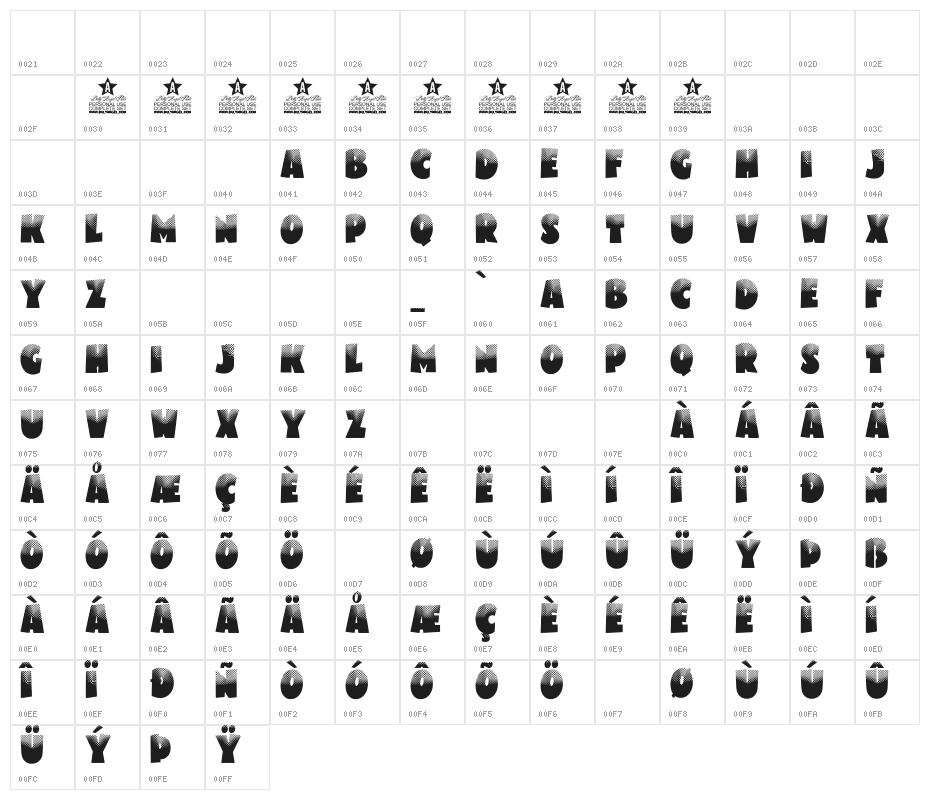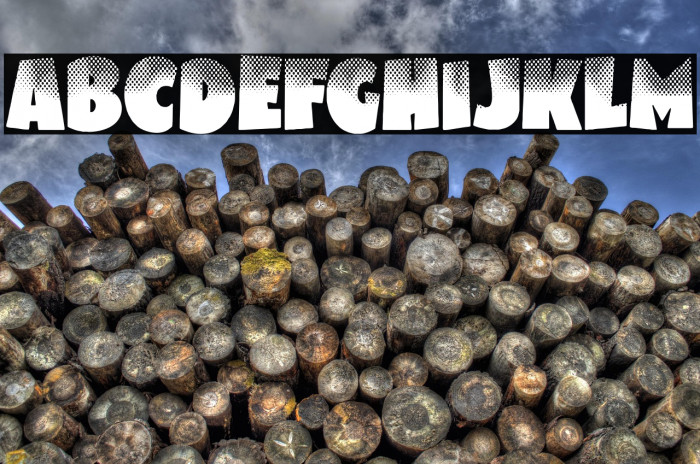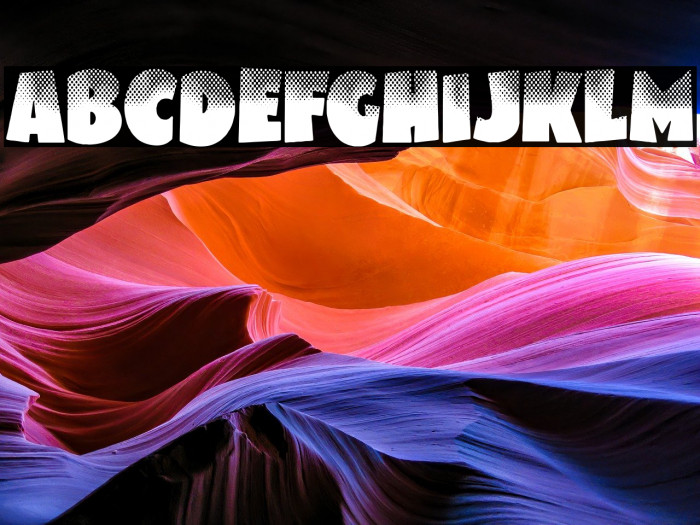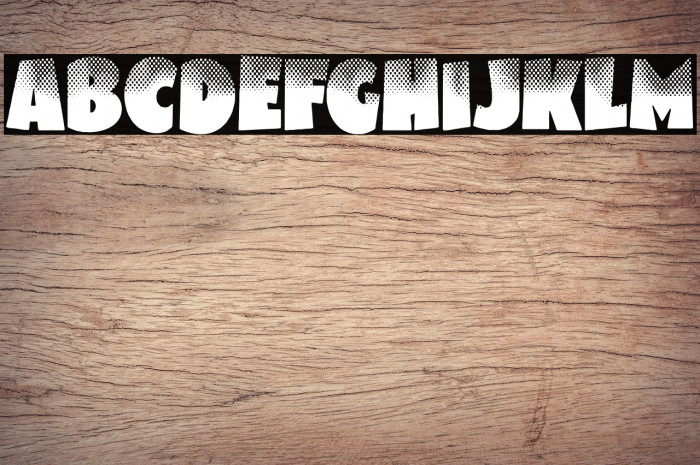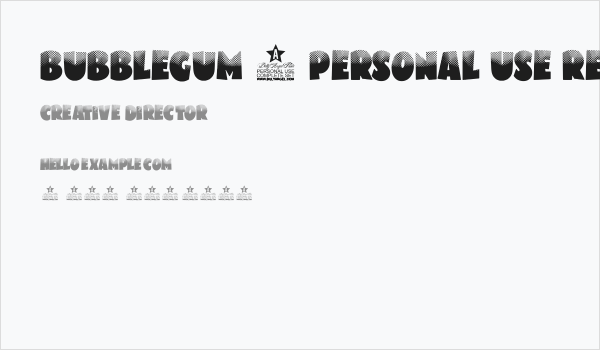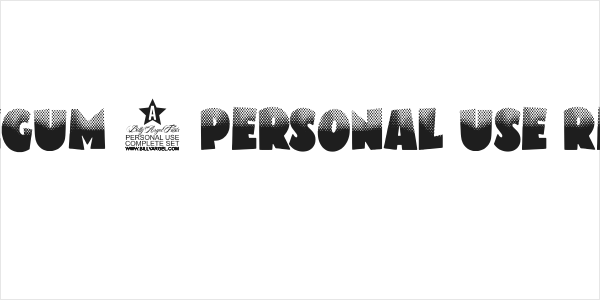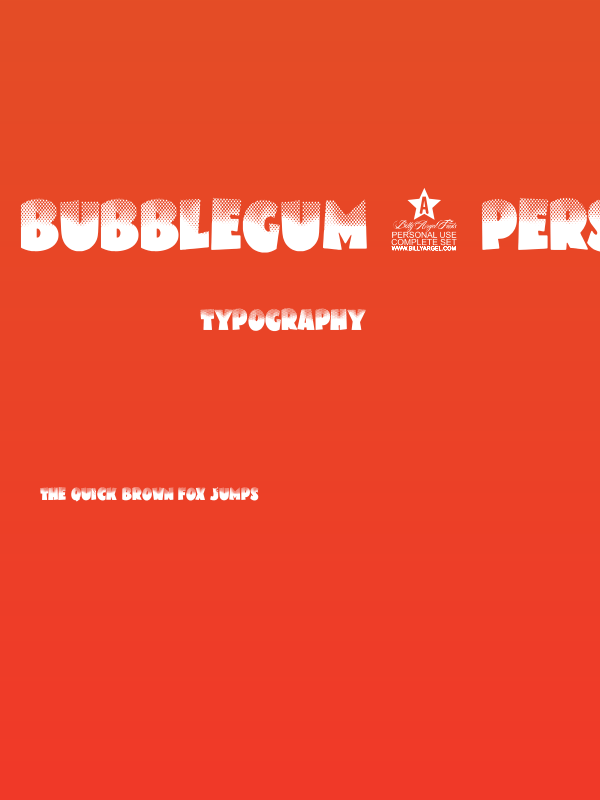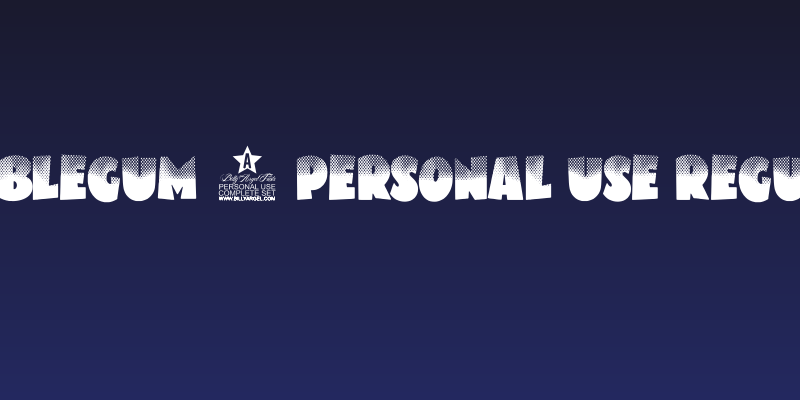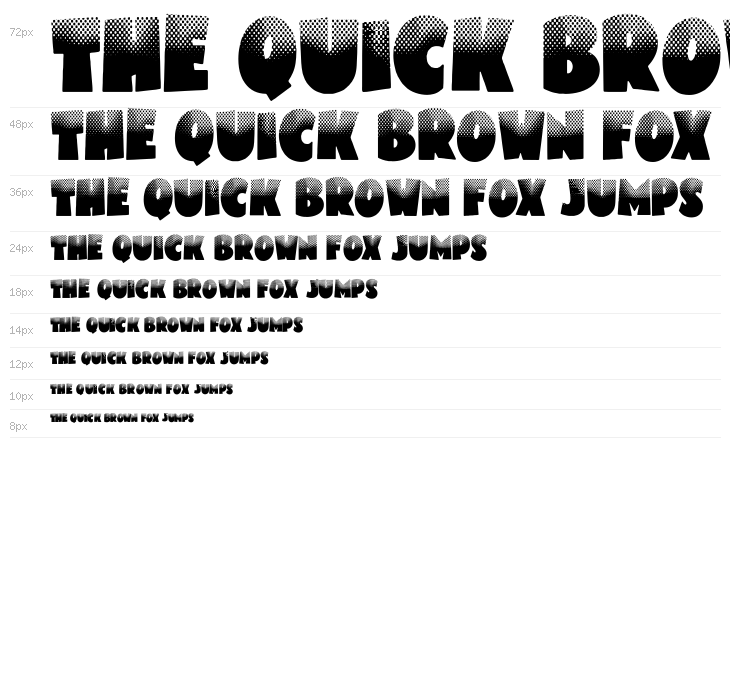
BUBBLEGUM 2 PERSONAL USE Regular Font
BUBBLEGUM 2 PERSONAL USE Regular Description
This font features a playful and bold design with a unique halftone pattern that adds a dynamic and textured appearance. The letters are large and rounded, giving a sense of fun and creativity. The boldness of the characters makes them stand out, while the halftone effect provides a retro comic book feel. This font is perfect for eye-catching designs that require a touch of whimsy and nostalgia. The uppercase letters are consistent in style, with a slight variation in the halftone density, adding depth and interest to each character.
| Overall Style | Retro, Playful |
| Proposed Projects | Ideal for comic book covers, children's book titles, playful posters, and retro-themed designs. |